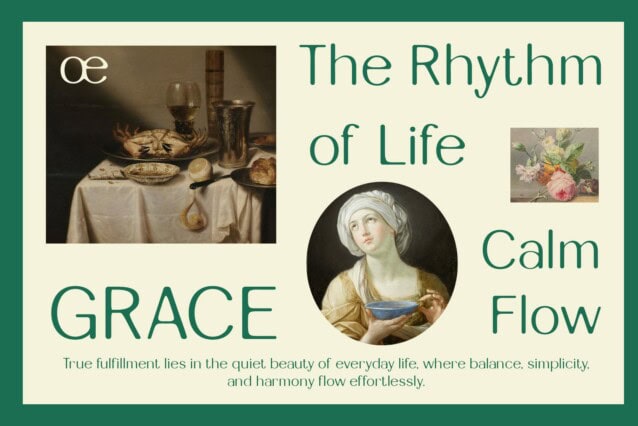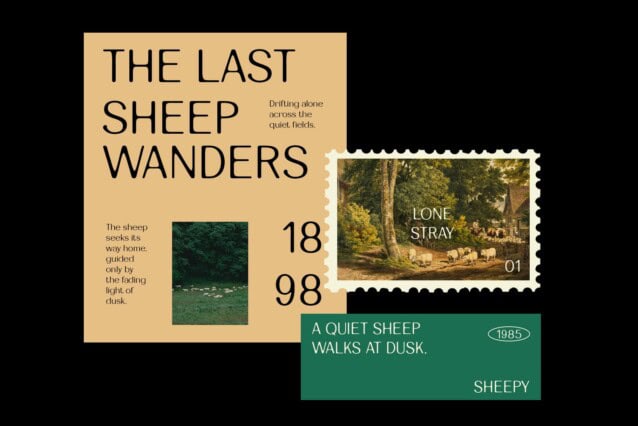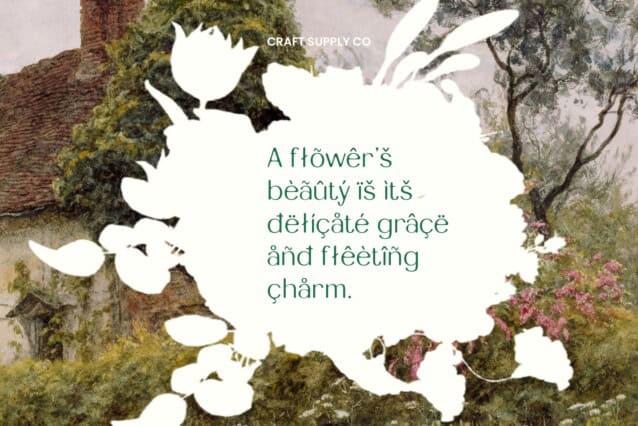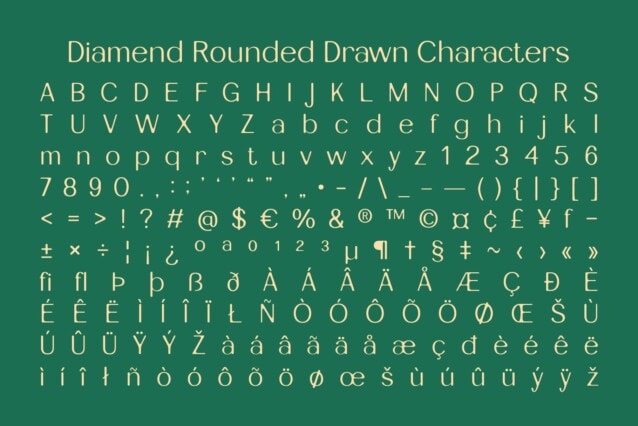
Diamend Rounded Drawn Font
Diamend Rounded Drawn Font is a modern sans-serif font that exudes elegance and softness through its minimalist, rounded design. Its smooth, flowing curves create a refined and contemporary aesthetic, making it a versatile choice for high-end branding, editorial layouts, and digital designs. With its clean yet inviting form, it enhances visual appeal without overwhelming the composition.